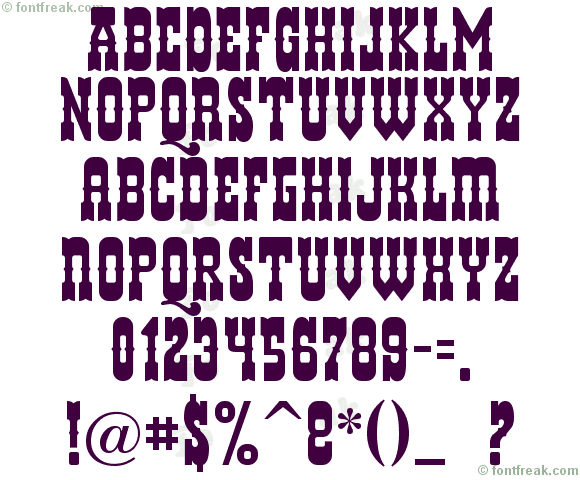
Helldorado
About Helldorado
The Helldorado font by Levi is a captivating display typeface that commands attention with its bold, blocky aesthetic. As a decorative font, it features heavy stroke weights that create a striking visual impact, while the contrasting elements add depth and character. The spacing between letters is well-considered, ensuring clarity and legibility even at larger sizes. This font is characterized by its unique blend of ruggedness and style, making it an excellent choice for various design projects.
The Helldorado font excels in use cases that require an eye-catching and memorable typeface. It is particularly suitable for movie posters, where its dramatic flair can evoke excitement and intrigue. Additionally, it shines in the realm of event flyers, adding a sense of urgency and boldness that draws the viewer in. Restaurant menus can also benefit from Helldorado's striking presence, particularly in establishments aiming for a thematic or edgy vibe. Furthermore, graphic designers looking to create standout branding materials will find Helldorado to be a versatile option that enhances logos and promotional materials.
In a world of typography that often trends towards minimalism, the Helldorado font stands out with its boldness and distinctive character. It captures attention effortlessly, ensuring that your message is not only seen but also remembered. If you're looking to make a statement, the Helldorado font free download is a must-have addition to your design toolkit.